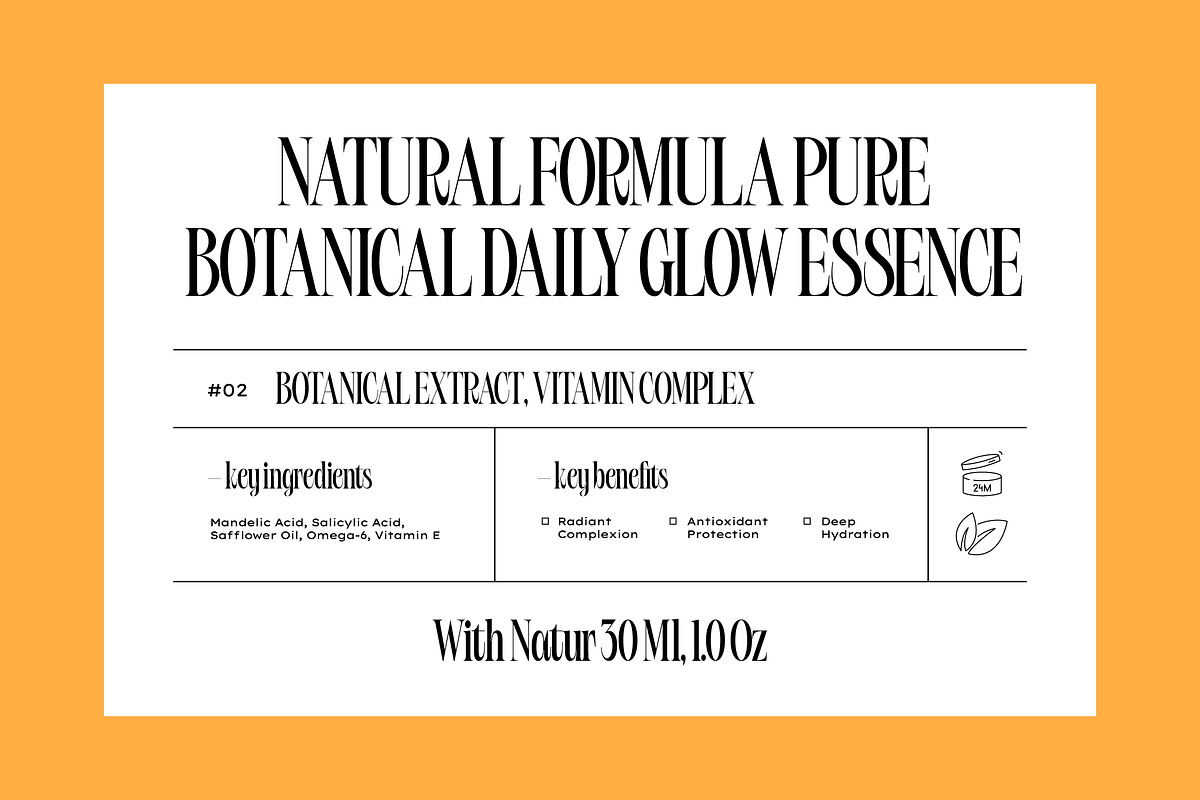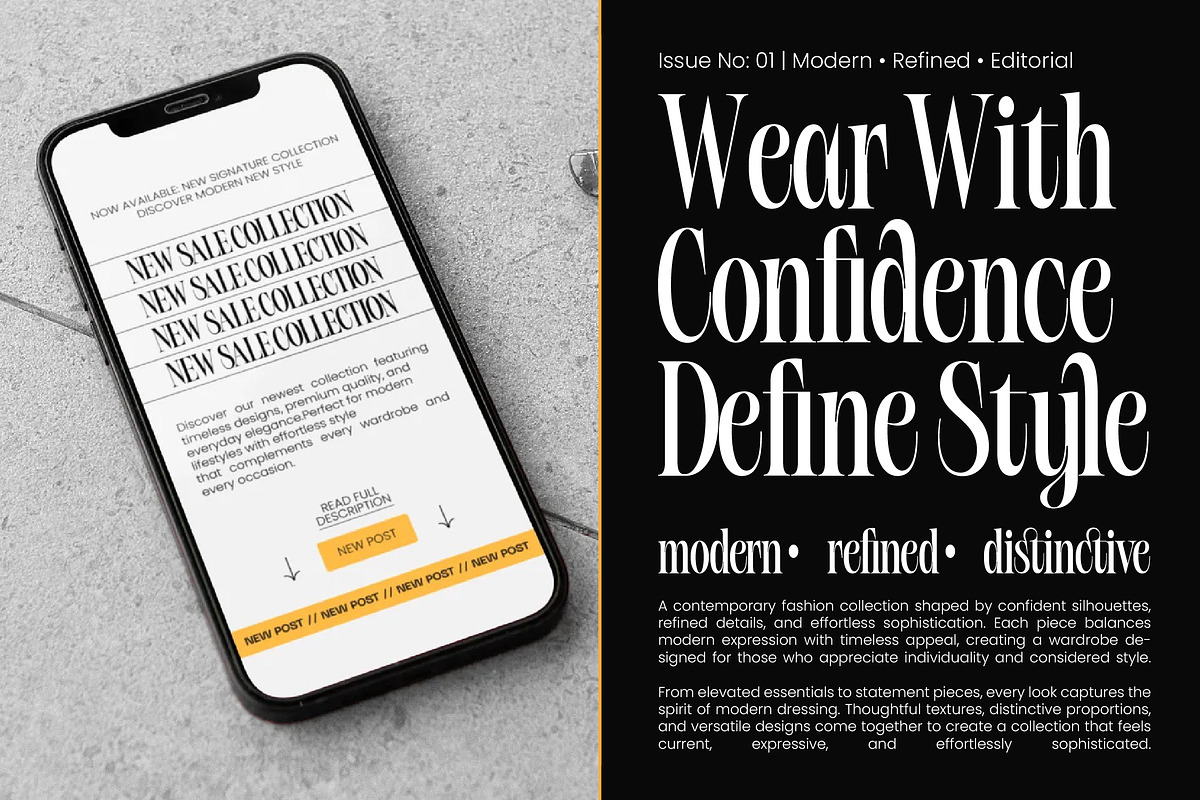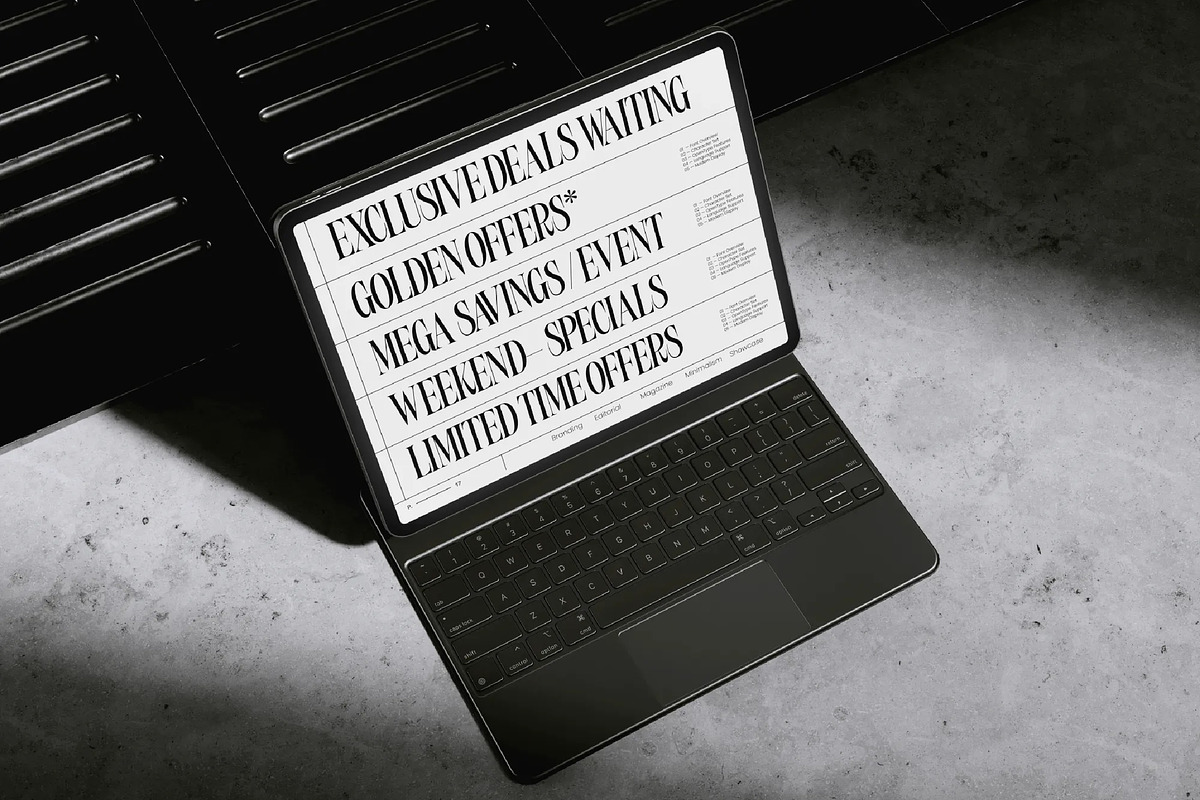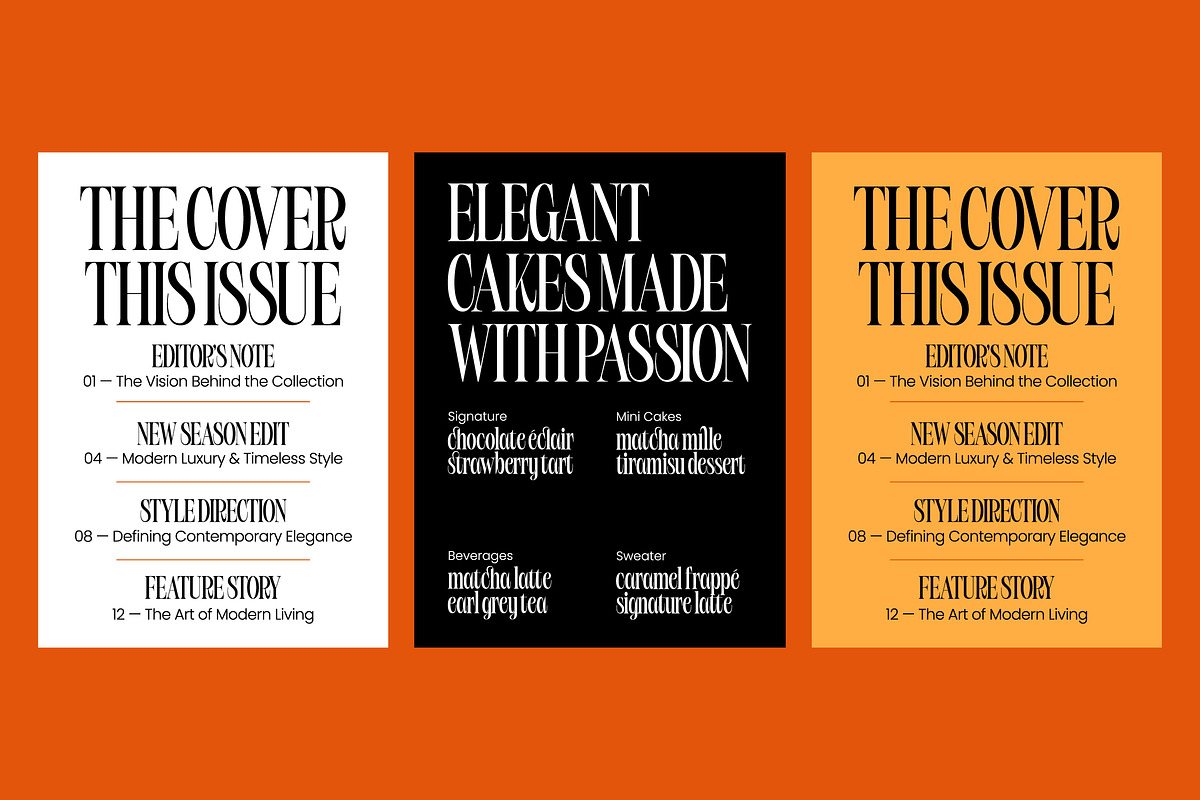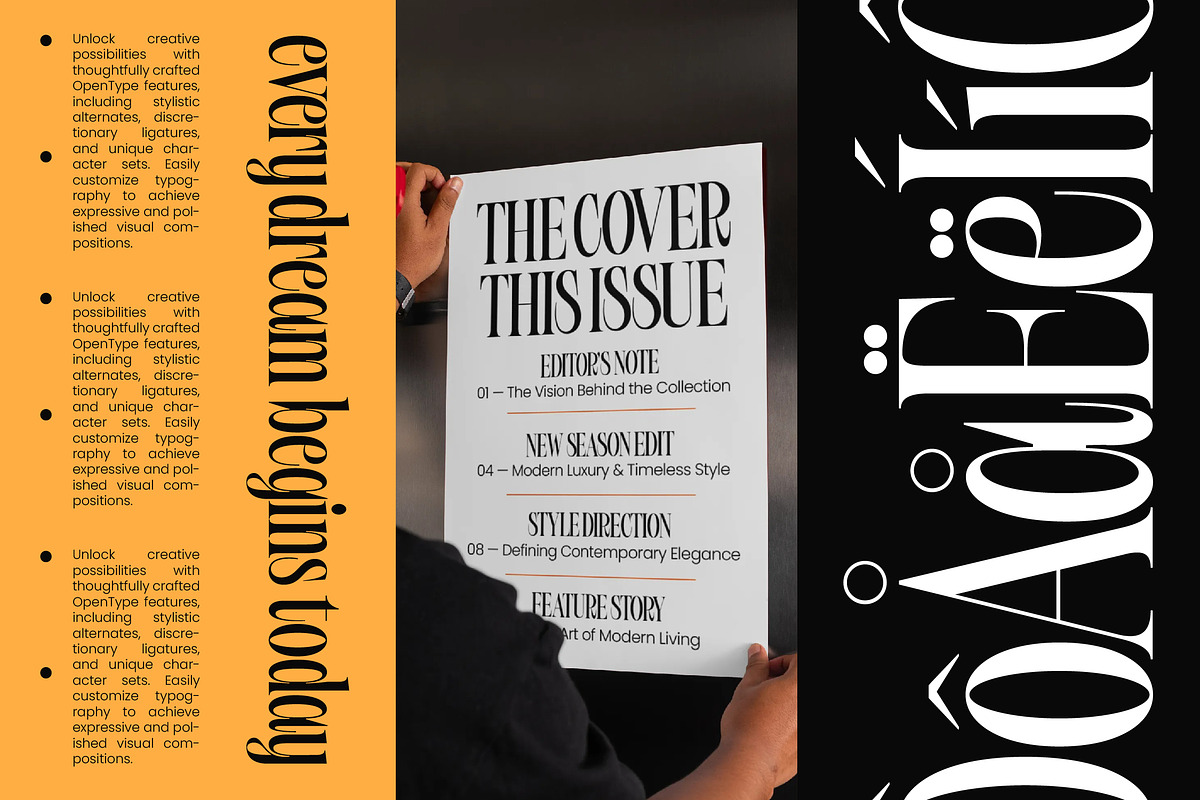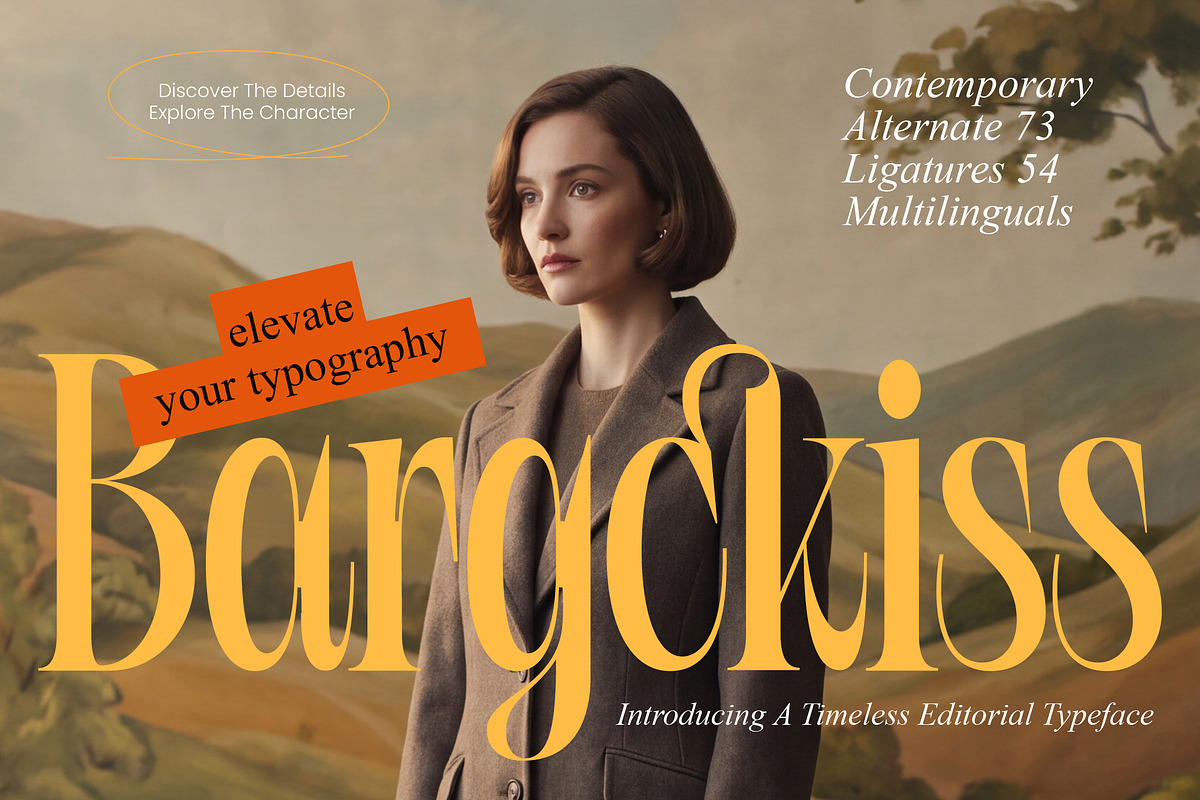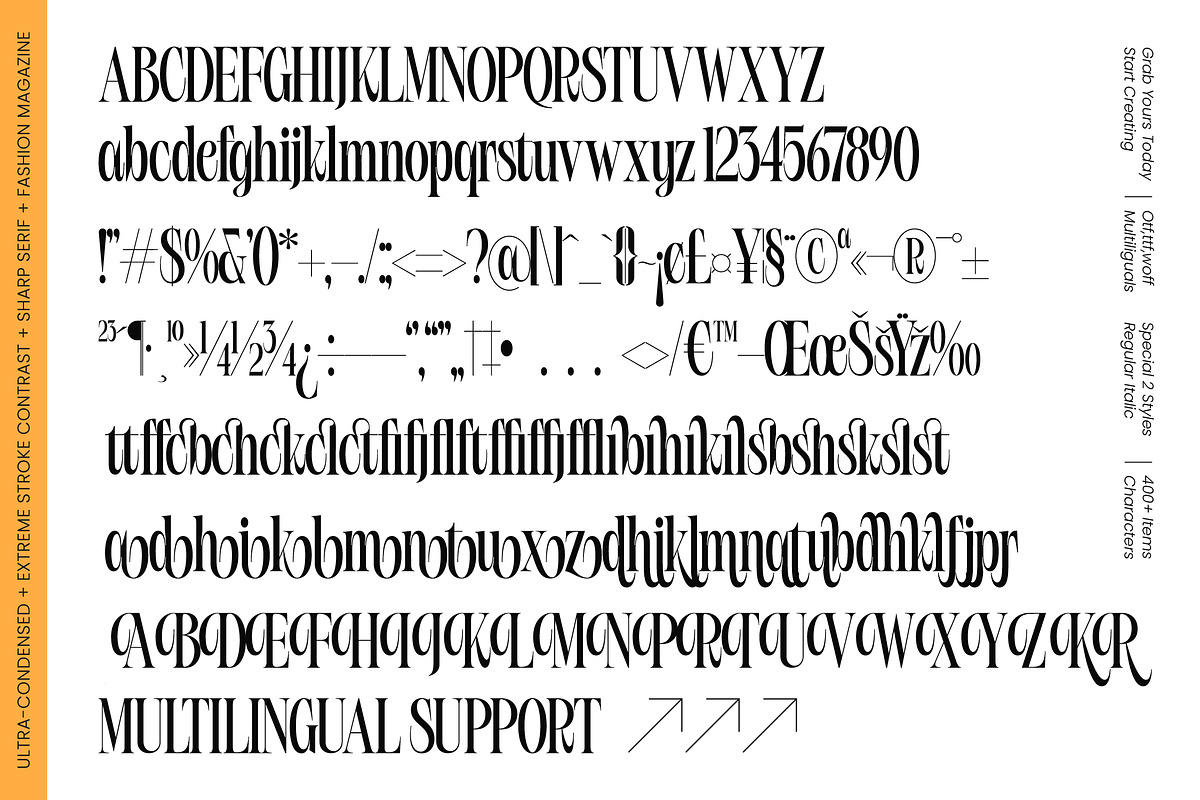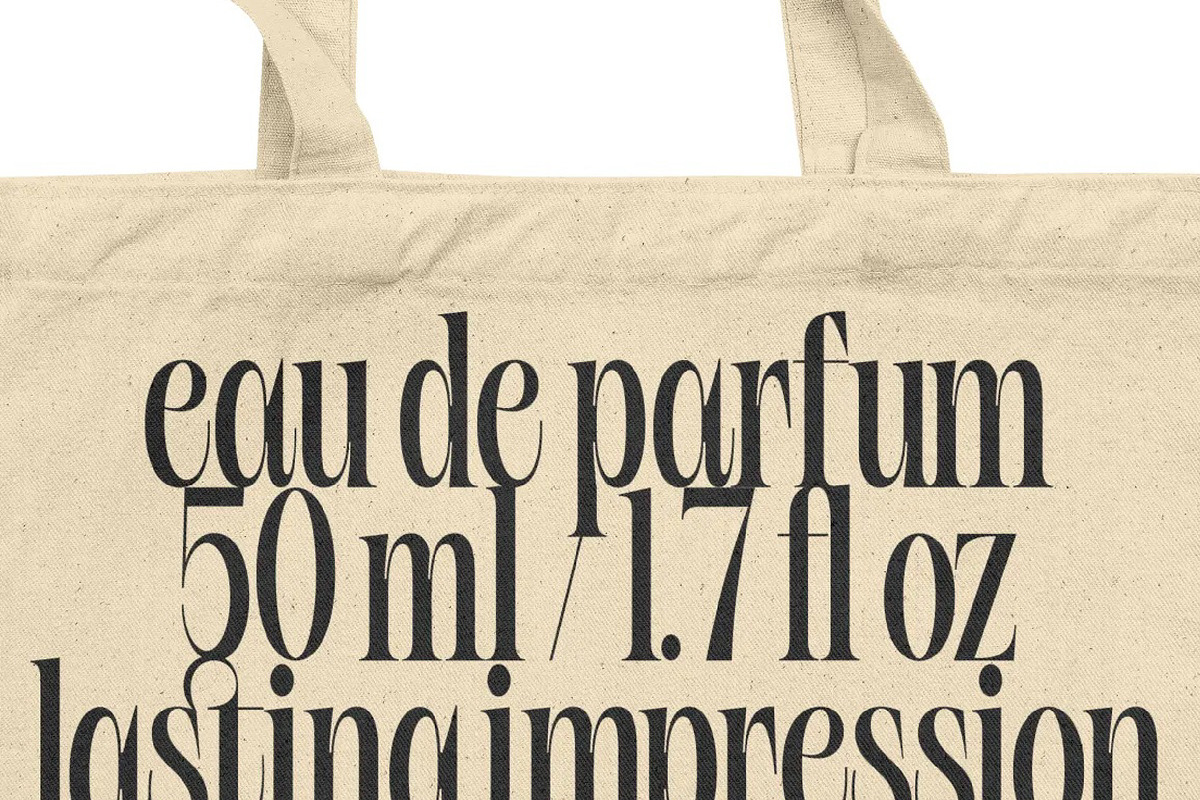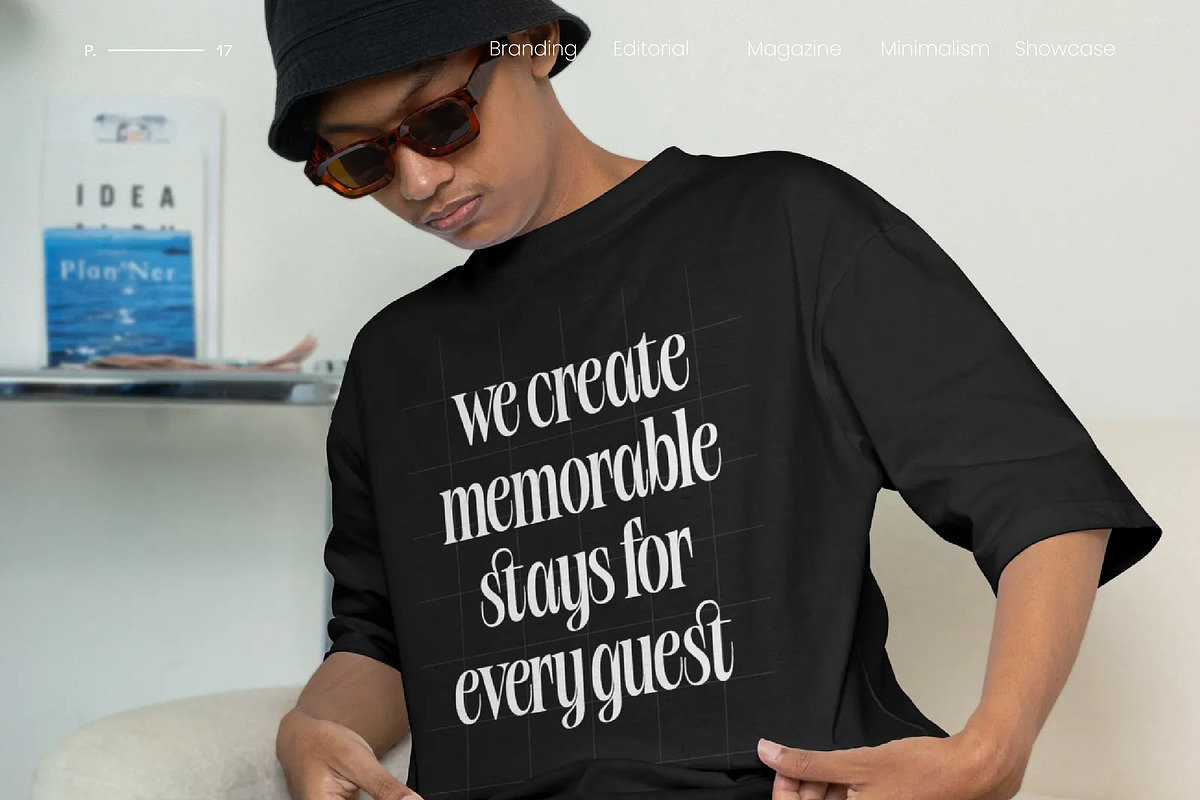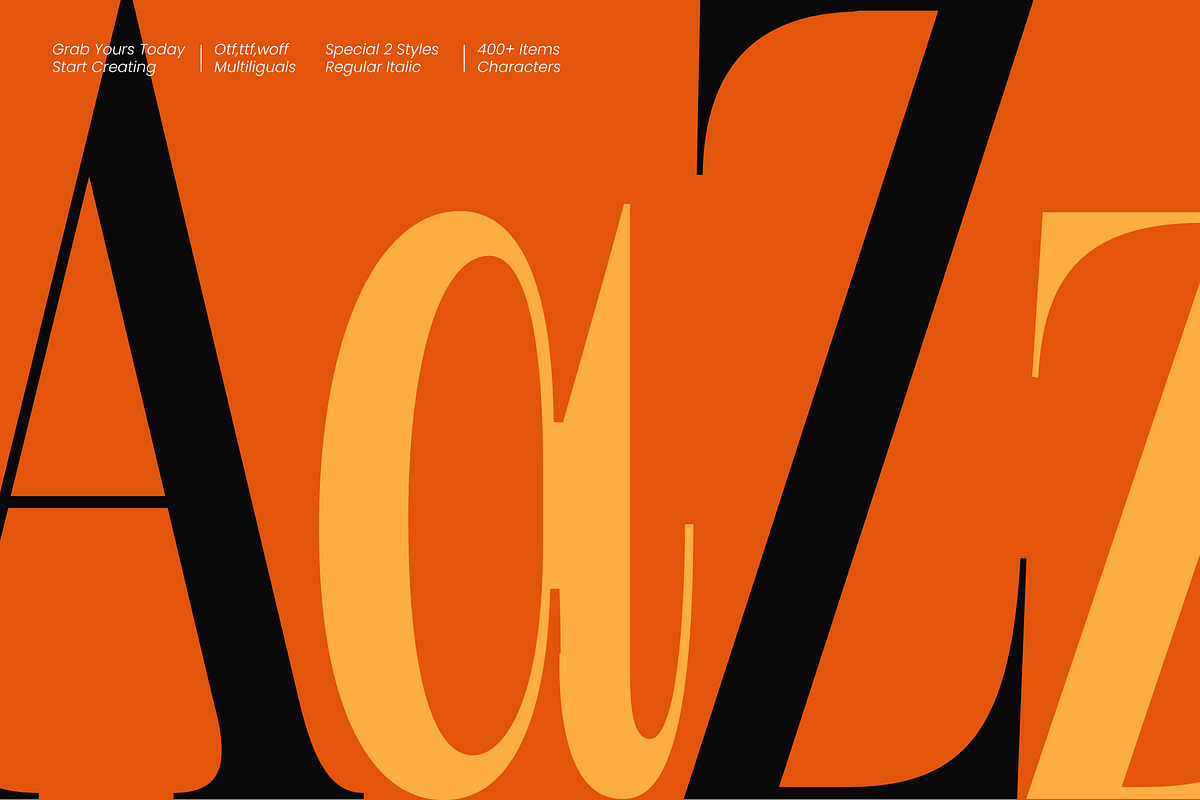
Bargckiss Contemporary Serif Display
Bargckiss - Contemporary Serif Display Font , Bargckiss is an exquisite display of refined elegance, capturing the essence of high-end editorial design with its striking presence. This font serves as a bridge between classic sophistication and cutting-edge modern aesthetics for discerning designers.
Inspired by the golden era of fashion magazines and the sharp lines of mid-century tailoring, this typeface evokes a sense of nostalgia blended with a contemporary pulse. It mirrors the poise of a silent film star stepping into a modern-day gallery, commanding attention with every stroke.
Built for maximum branding impact, this modern serif display delivers a luxury typography experience that is both bold and graceful. Its high-contrast serif architecture creates a rhythmic flow, making it an essential editorial font for projects that require a touch of class and distinction.
As the modern serif trend continues to dominate the visual landscape, Bargckiss stands out among editorial display fonts by offering a unique verticality. This character-driven typography meets the demands of current design cycles where condensed elegance and extreme contrast are paramount.
This versatile typeface is the perfect choice for high-end logo design, sophisticated branding, and avant-garde editorial layouts. Whether you are crafting luxury packaging, timeless wedding invitations, or minimalist fashion spreads, it provides the visual gravity needed to elevate your work.
Enhance your compositions with a rich library of 54 ligatures and 73 alternates that allow for custom typographic expressions. The font also includes elegant swashes and full multilingual support for over 400 international characters, ensuring global compatibility.